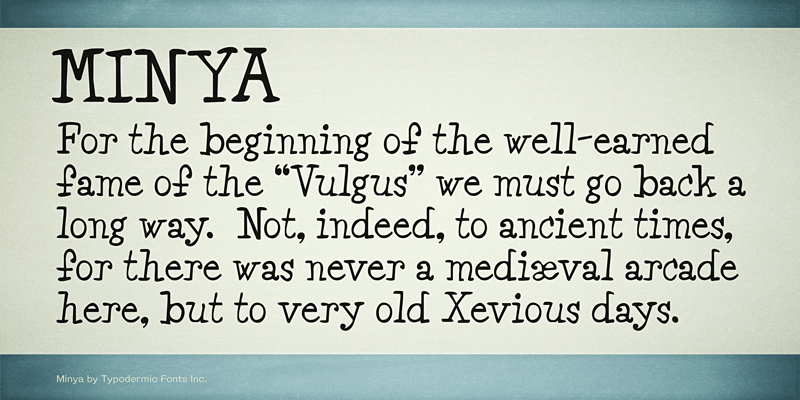
Preview and download Minya Font. Created by Typodermic Fonts in Fancy Typewriter styles with 100% Free license.
Minya is a makeshift, slipshod typewriter font. This font includes a license that allows free commercial use: sometimes referred to as a desktop license. This allows you to install the font on a computer and use it to create posters, web graphics, game graphics, t-shirts, videos, signs, logos and more. Read the license agreement for details. If you'd like to embed this font in an app, ebook, on the web or anything that's not covered by the desktop license agreement, visit the link below. You'll find distributors who offer different types of licenses or you can contact me for help. http://typodermicfonts.com/minya/ |